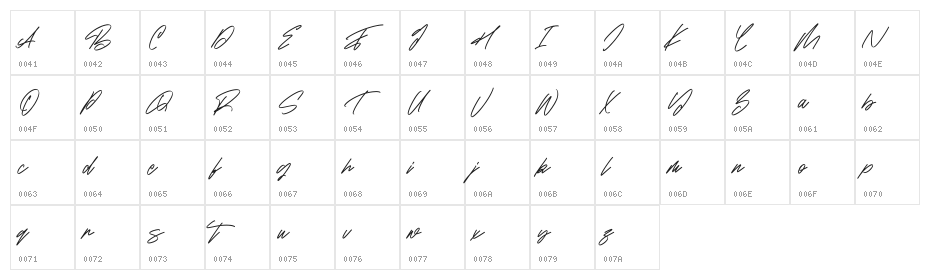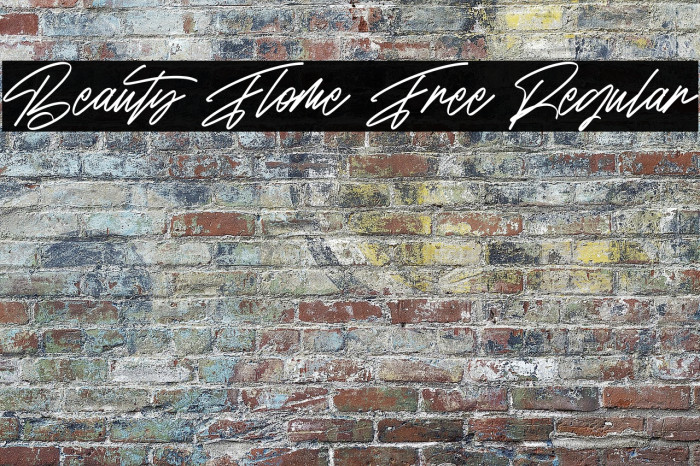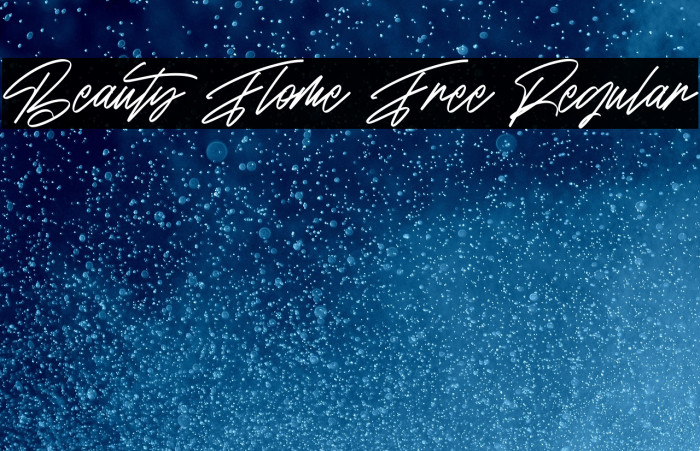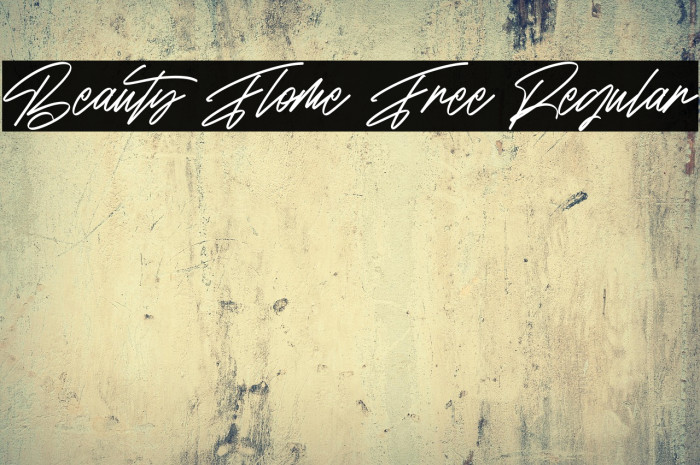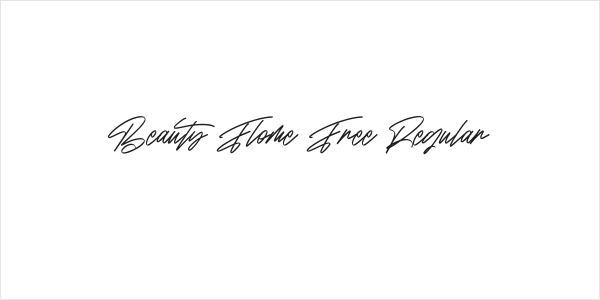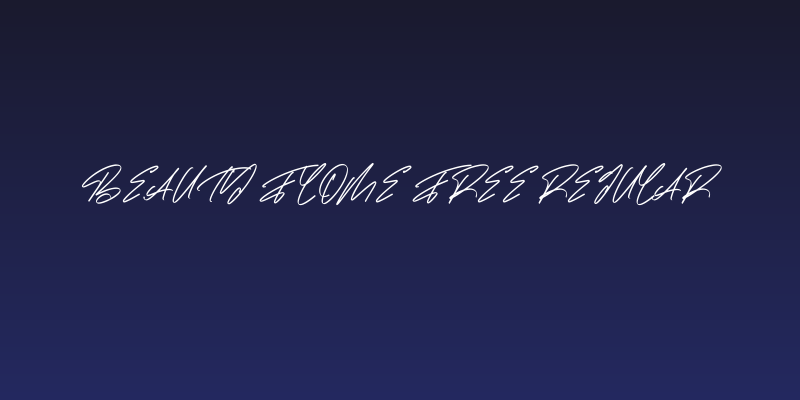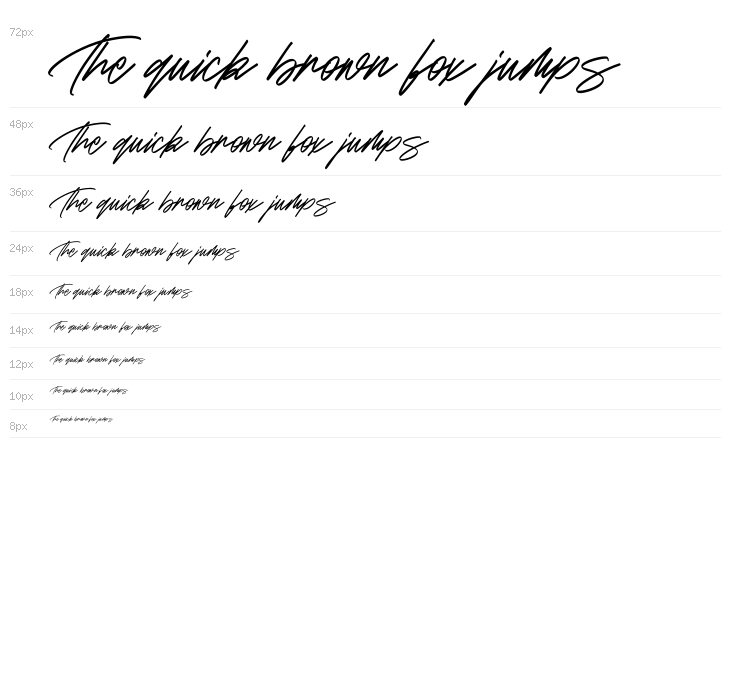
Beauty Flome Free Regular Font
Beauty Flome Free Regular Description
This font features an elegant and flowing script style, characterized by its cursive, handwritten appearance. The letters are interconnected with smooth, sweeping strokes, giving it a dynamic and fluid look. The uppercase letters are bold and prominent, while the lowercase letters maintain a consistent flow, adding to the overall aesthetic. The font exudes a sense of sophistication and creativity, making it ideal for projects that require a personal touch. The characters are well-balanced, with a slight slant that enhances its graceful appearance.
| Overall Style | Elegant, Creative |
| Use Case | Logos, Invitations, Personal stationery |
| Proposed Projects | Ideal for wedding invitations, greeting cards, branding, and personal stationery. |